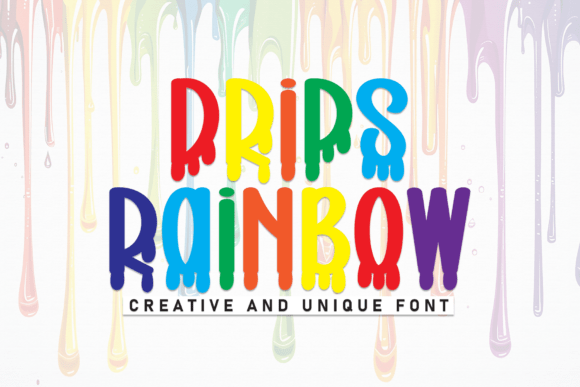
Discover the Perfect Blend of Simplicity and Whimsy
As designers, we’ve all been there – staring at a blank canvas, trying to capture the perfect balance of style and substance. And then, like a breath of fresh air, it hits us: a font that embodies the essence of modern typography. For me, that moment came when I stumbled upon the Drips Rainbow Font. Its clean lines, balanced letterforms, and subtle rounded edges immediately caught my attention, transporting me to a world of creativity and possibility.
The Drips Rainbow Font is a casual and neat display font that brings a friendly, approachable vibe to any design. Whether you’re crafting a brand identity, creating eye-catching headlines, or designing engaging packaging, this versatile font delivers clarity and charm in equal measure. Its polished finish and crisp structure make it an invaluable asset for designers looking to add a warm and inviting touch to their work.
Drips Rainbow Font Key Features
- Unique Characteristic: Drips Rainbow Font features a unique, hand-drawn style with a rainbow color gradient effect
Drips Rainbow Font Review
Overall, I think Drips Rainbow Font has some nice qualities, but it also has some drawbacks. Here are my thoughts: ✨
- The unique blend of colors and textures in this font makes it perfect for adding a playful and whimsical touch to any design project. It’s great for creating a sense of fun and energy.
- The font’s irregular shapes and letterforms give it a handmade feel, which can be appealing for designs that need a bit of personality.
- The font’s readability can be an issue, especially at smaller sizes. The irregular shapes and lack of clear lines can make it difficult to discern individual letters.
- The font’s color palette can be overwhelming if not used carefully. It’s easy to get lost in the bright colors and lose the focus of the design.
In my opinion, Drips Rainbow Font is best suited for designs where a playful and whimsical feel is essential, but it’s not the best choice for projects where readability and simplicity are key. With careful use, it can add a lot of personality to a design, but it requires some finesse to get it right.
Tips for Getting the Most Out of Drips Rainbow Font
Here are a few tips for getting the most out of Drips Rainbow Font:
- Experiment with different font sizes and colors to create a visually appealing effect.
- Use Drips Rainbow Font in combination with other fonts to add visual interest to your design.
- Consider using Drips Rainbow Font for headings or titles to create a bold and eye-catching effect.
Drips Rainbow Font is commonly used in:
- Wedding invitations and decorations.
- Party and event invitations.